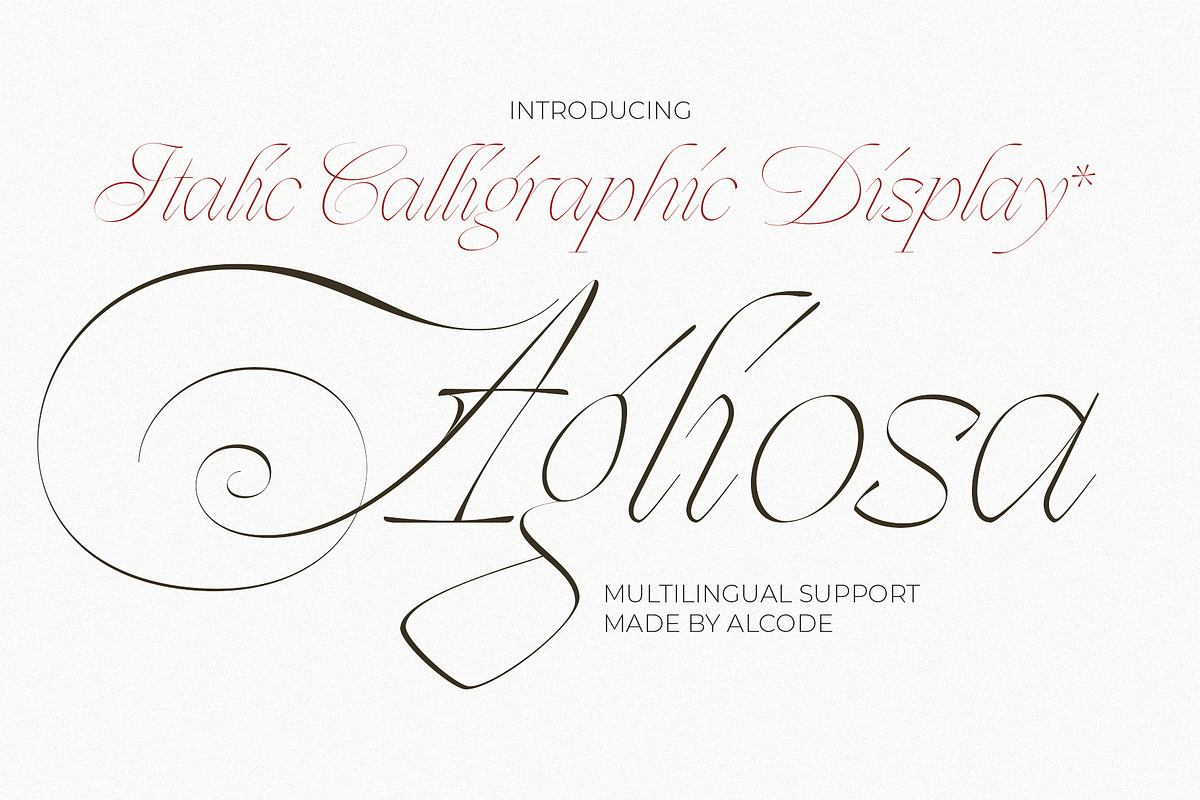
Agliosa Italic Calligraphic Free Download
Agliosa Italic Calligraphic Font Free Download is a luxurious and flowing typeface that brings classic calligraphy into the modern design space. With its graceful curves and refined strokes, Agliosa is perfect for wedding invitations, high-end branding, elegant packaging, and editorial layouts. It adds a touch of sophistication and romance to any project with its handwritten charm.
Designed to evoke the beauty of traditional calligraphy, Agliosa Italic Calligraphic Font Free Download offers a timeless aesthetic with smooth transitions and delicate flair. The italic style enhances its visual rhythm, making it ideal for decorative headers, signature logos, and quote designs that need a graceful, artistic feel.